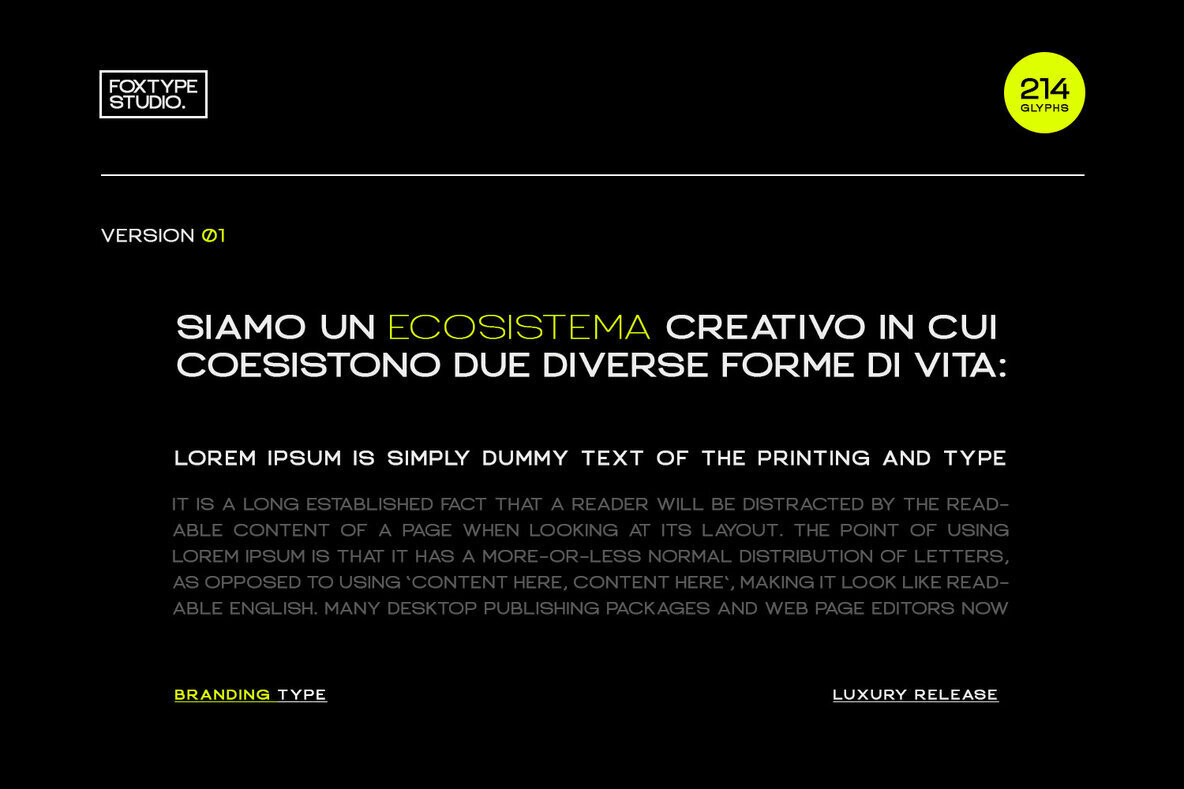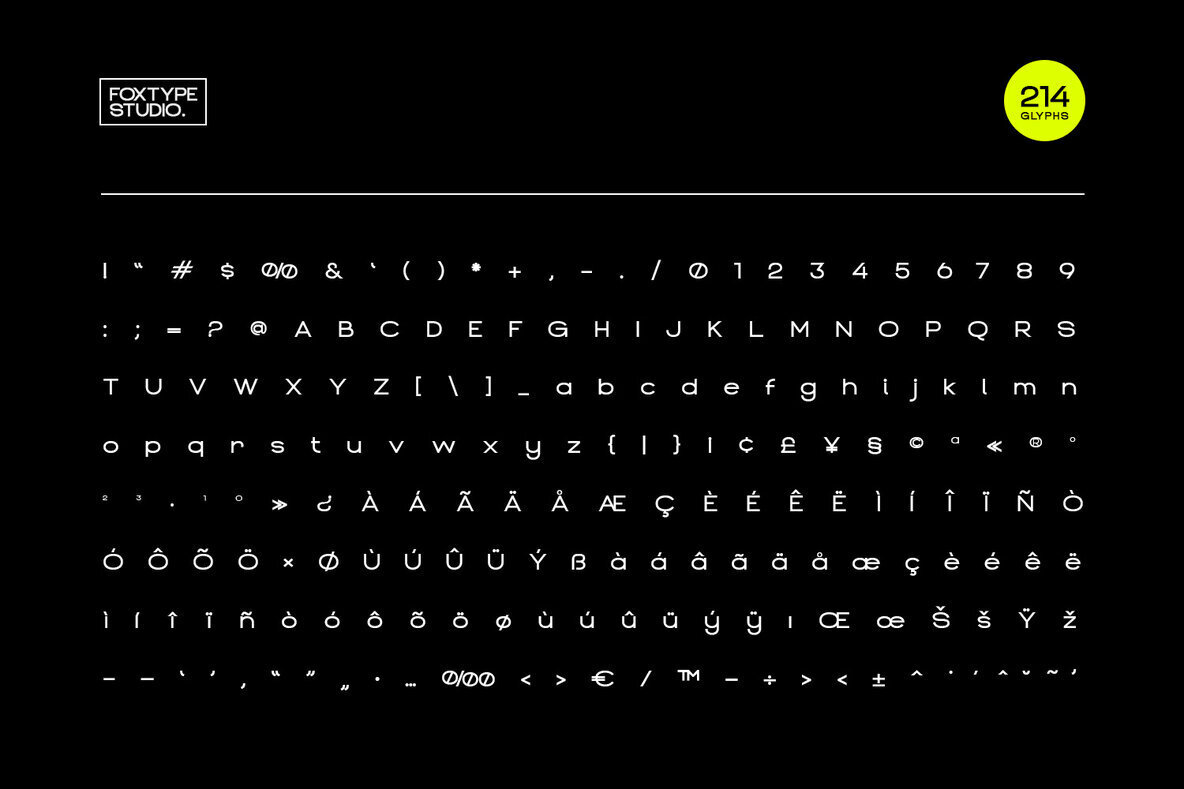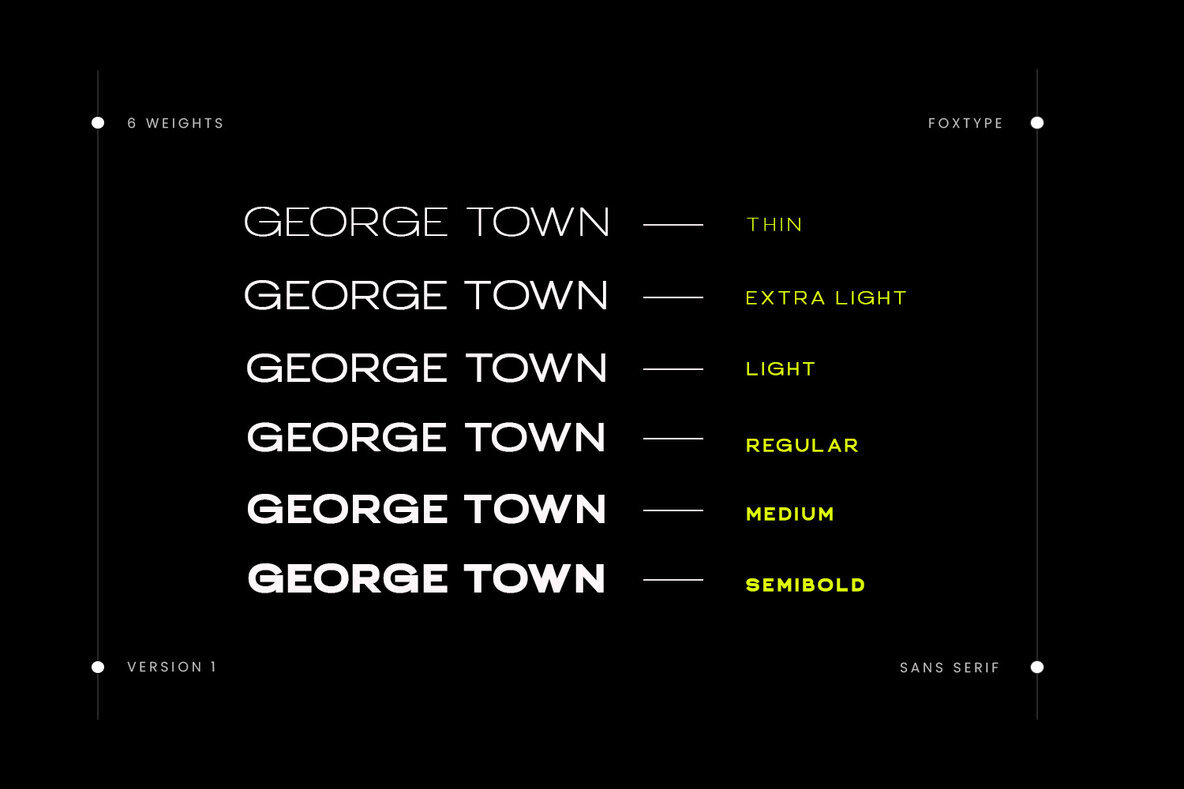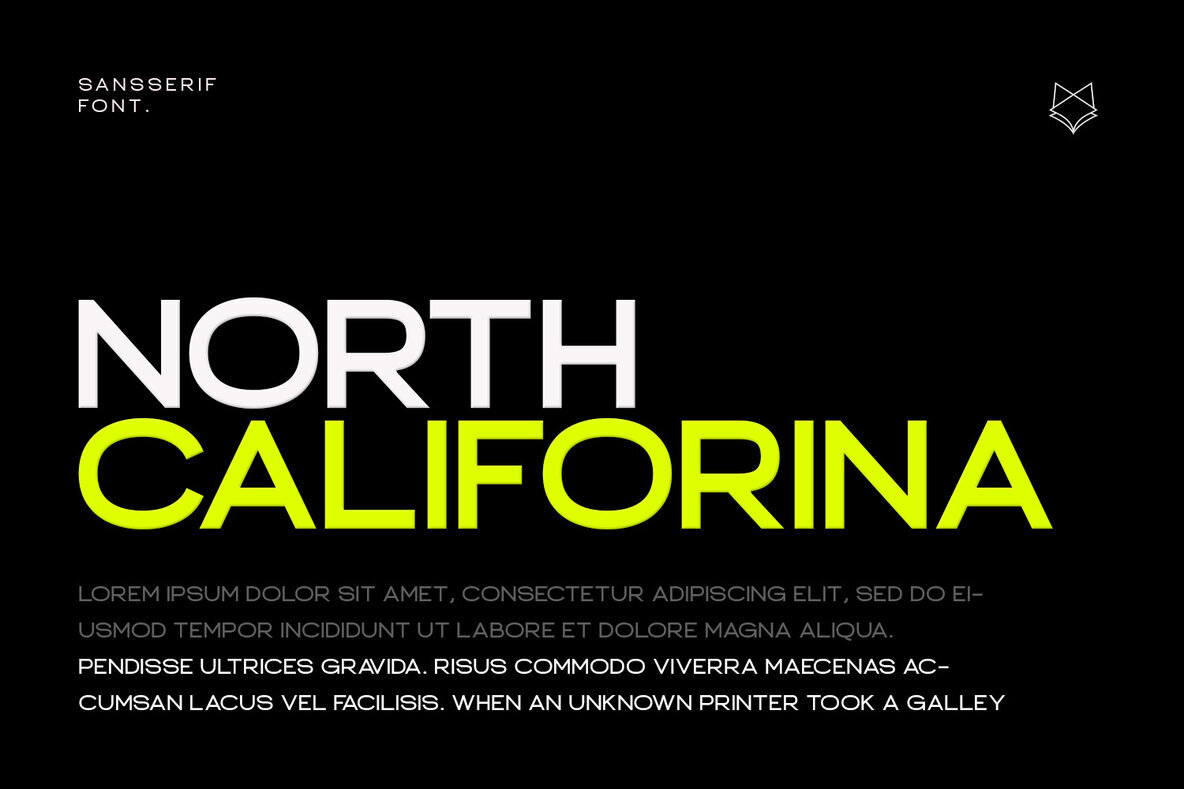
George Town Font
George Town by FoxType Co introduces a new generation of typeface, meticulously crafted with six distinctive weights. Designed with an intent to captivate and engage, this typeface provides an ambitious yet refined solution for brand identity. Whether you are developing logos, titles, or digital ads, or simply need a reliable corporate font, George Town adapts seamlessly to your diverse design needs. Embrace the precision and versatility of George Town, tailored for the nuanced demands of contemporary design. Its structured approach ensures your brand communicates with clarity and sophistication.George Town: Innovative Typeface for Modern Brands